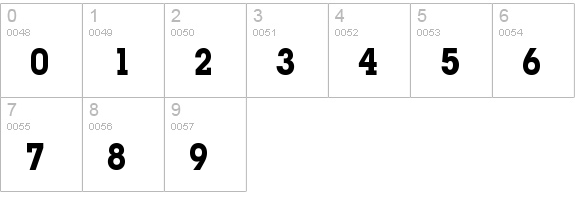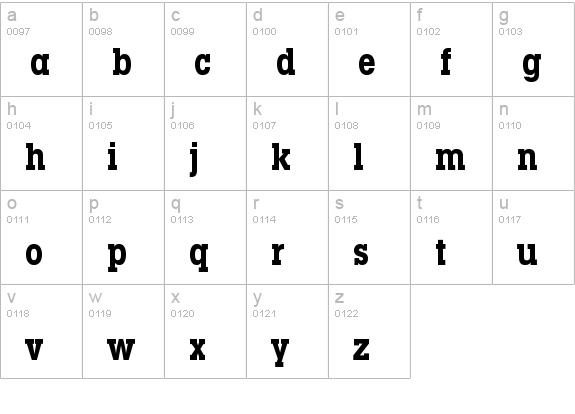
LubalinGraphEF-BoldCond Font Details
LubalinGraphEF-BoldCond is a bold and striking font that commands attention with its clean lines and modern aesthetic. This versatile typeface is perfect for making a bold statement in headlines, logos, posters, and other design projects. Its condensed form gives it a sleek and sophisticated look, making it ideal for projects that require a strong visual impact. What sets LubalinGraphEF-BoldCond apart is its unique blend of classic elegance and contemporary flair. The sharp angles and geometric shapes of the letters create a sense of modernity, while the bold weight gives it a sense of strength and authority. Whether you're designing a magazine layout, branding materials, or web graphics, this font is sure to make a lasting impression. And the best part? LubalinGraphEF-BoldCond is available for free download at FontsMarket.com. So you can add this stylish and impactful font to your design arsenal without breaking the bank. Don't miss out on the opportunity to elevate your projects with the bold and expressive LubalinGraphEF-BoldCond font - download it today and unleash your creativity!